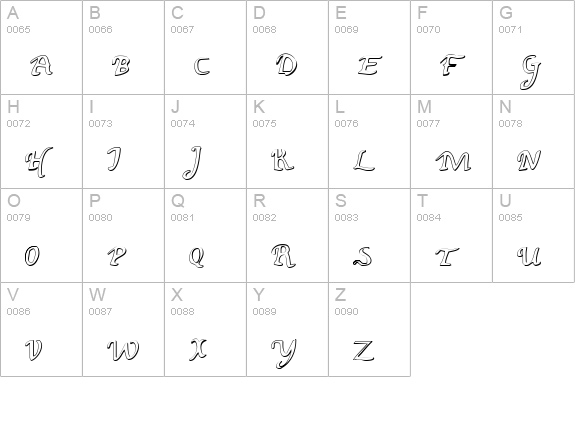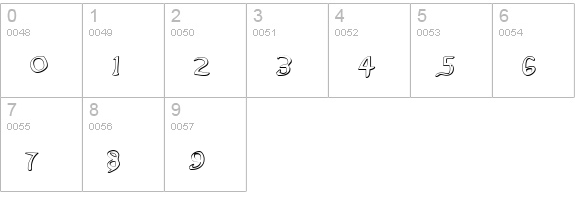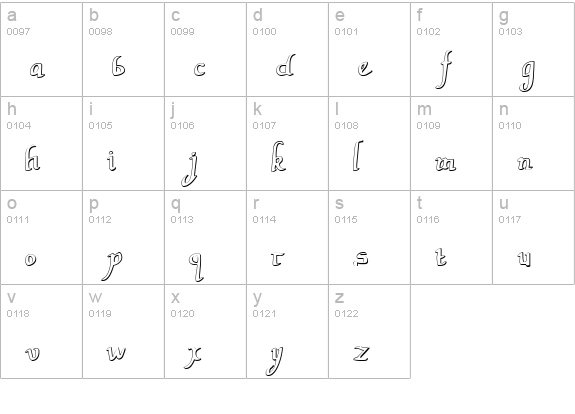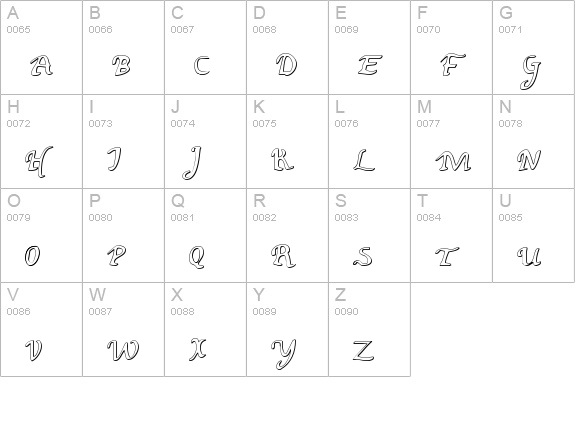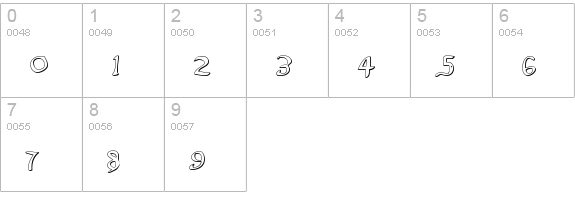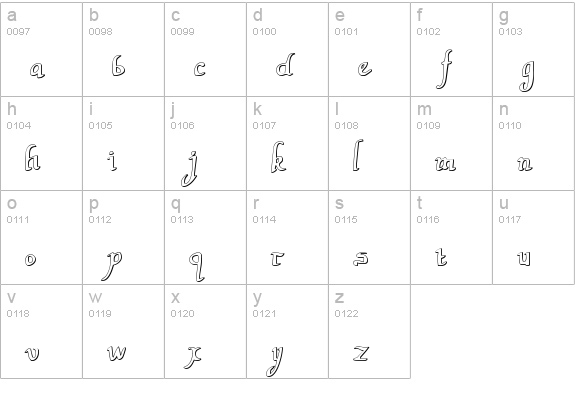
Valley Forge Outline font is a striking and versatile typeface that exudes a sense of elegance and sophistication. With its clean lines and sharp edges, this font is perfect for adding a touch of modernity to any design project. The outline style of Valley Forge gives it a unique and eye-catching look, making it ideal for headlines, titles, and other display purposes. The best part about Valley Forge Outline font? It's completely free! You can download this beautiful font at FontsMarket.com without spending a penny. Whether you're a designer looking to add a fresh new font to your collection or someone in need of a stylish typeface for a project, Valley Forge Outline font is sure to impress. Don't miss out on this fantastic opportunity to enhance your designs with this stunning and free font.